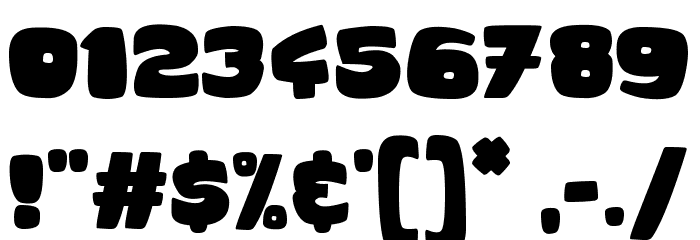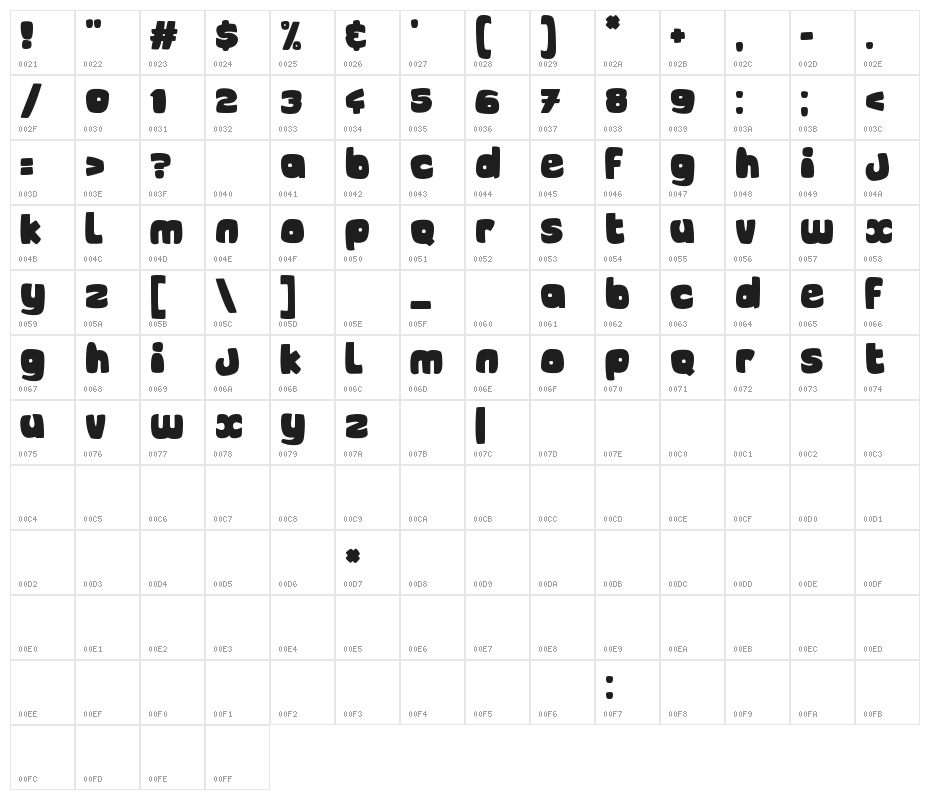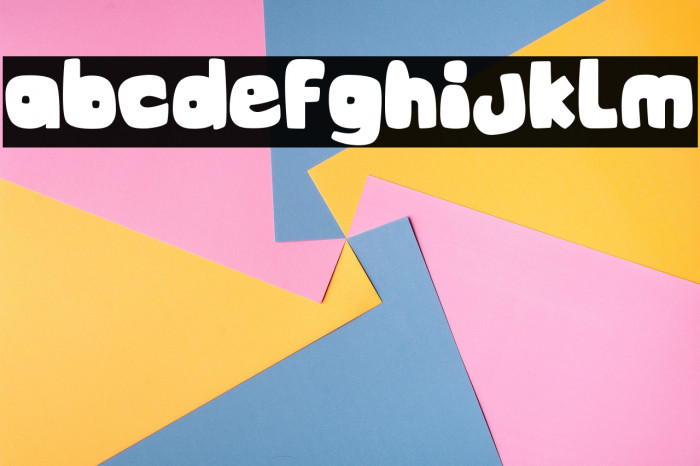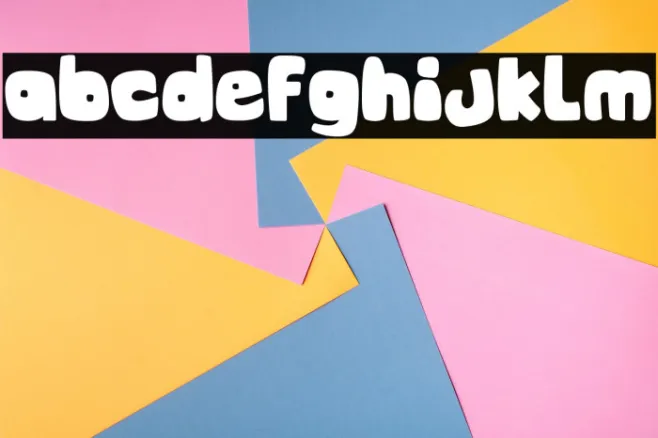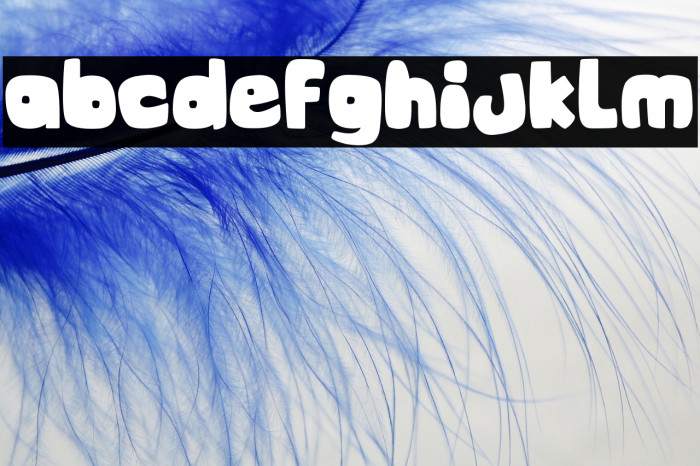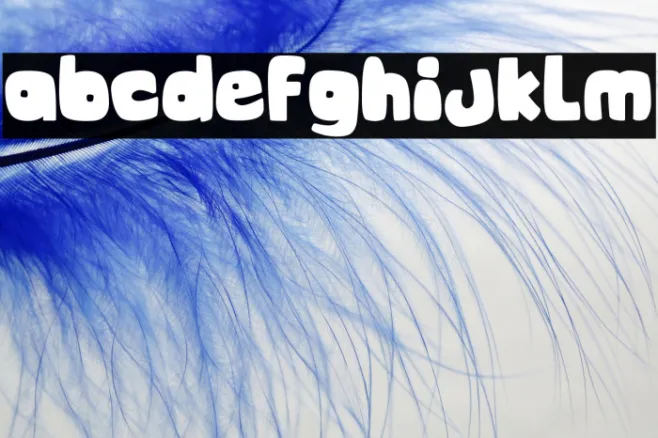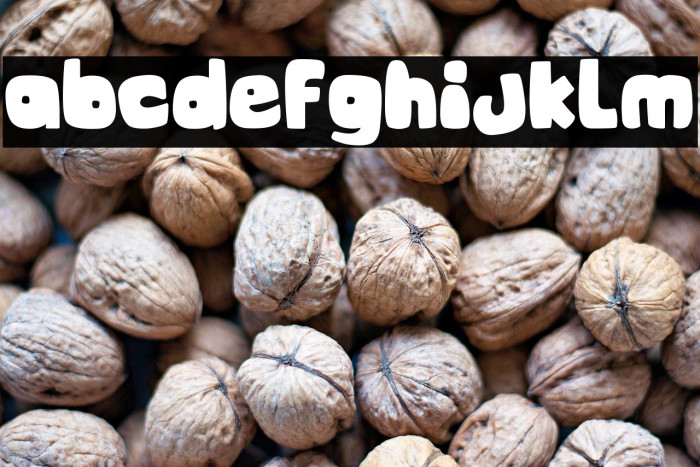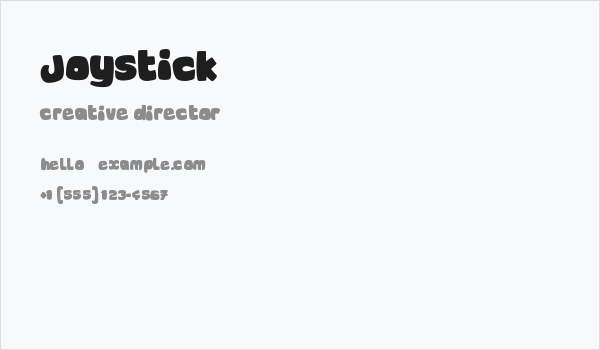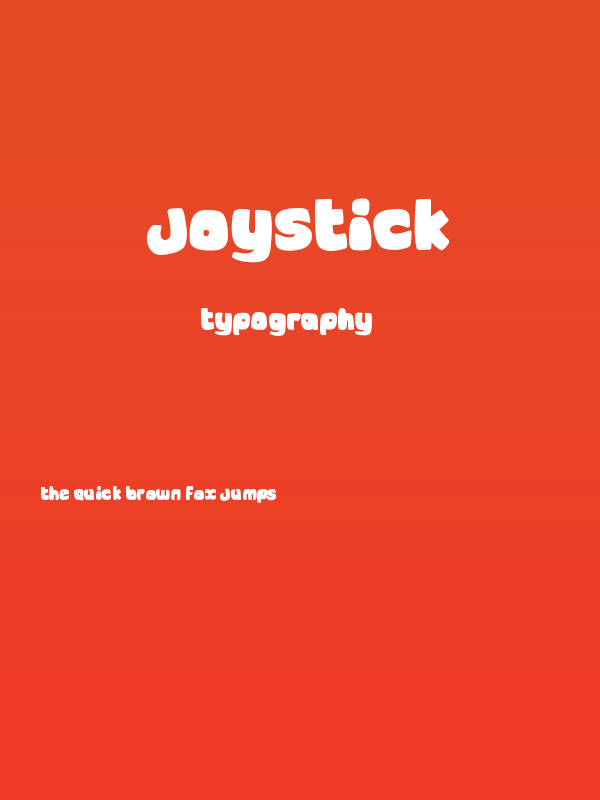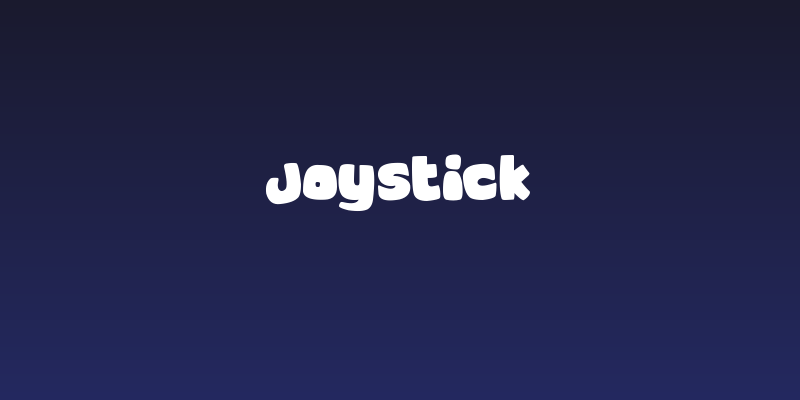
Joystick Font
Joystick Description
This playful and bold font features rounded, thick characters that convey a sense of fun and energy. The letters are uniformly wide, with a slightly condensed appearance, giving them a compact and impactful look. The font maintains a consistent stroke width throughout, resulting in low contrast. Its bubbly and cartoonish style makes it ideal for projects that require a lively and informal touch. The characters are well-spaced, ensuring readability while maintaining a cohesive visual flow. This font is particularly suited for creative and playful designs, where a sense of whimsy and approachability is desired.
| Overall Style | Playful, Cartoonish |
| Proposed Projects | Ideal for children's books, playful branding, comic strips, and party invitations. |